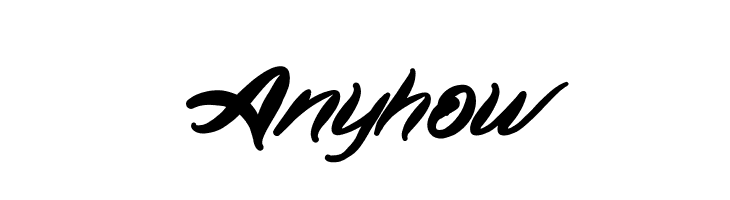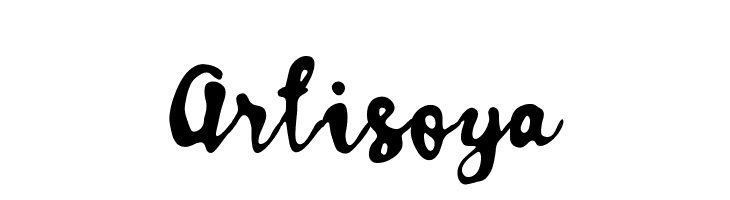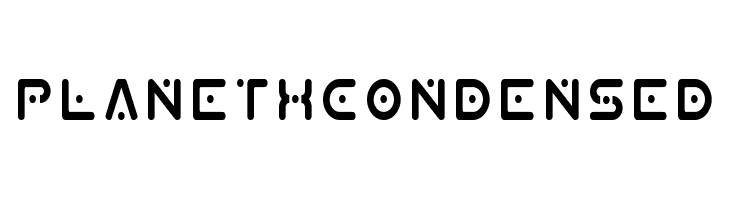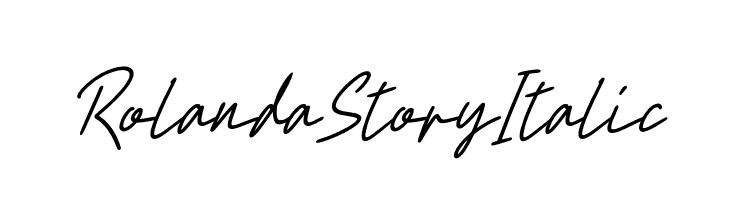
A modern, ultra-condensed bold font with a sleek and minimalist style.
A bold, brushstroke font with a raw, artistic feel and textured edges.
A sleek, ultra-expanded semi-bold font with a modern, minimalist aesthetic.
A casual and elegant handwritten font with flowing, interconnected letterforms.
A lively and expressive script font with elegant, flowing cursive letters.
A flowing, elegant script font with smooth, connected strokes and a handwritten appearance.
A bold, condensed, semi-italic font with angular edges and dynamic style.
A modern, hollow, and geometric font with smooth, rounded lines.
A playful handwritten font with flowing, connected letterforms and a whimsical style.